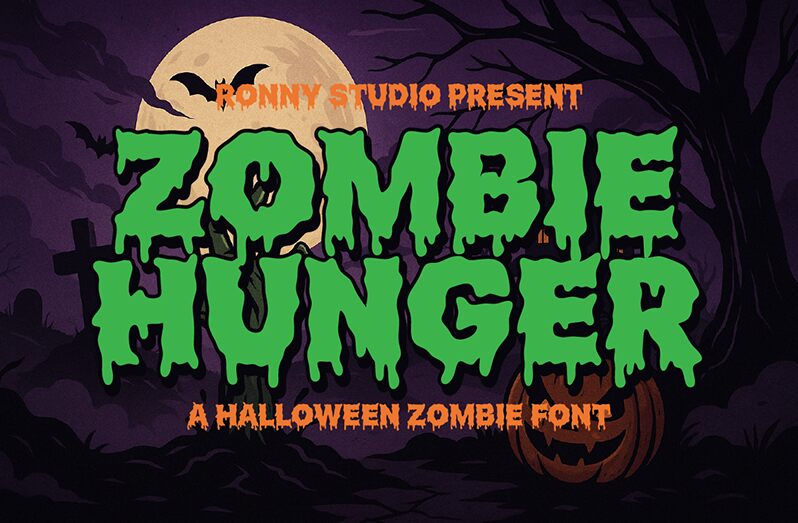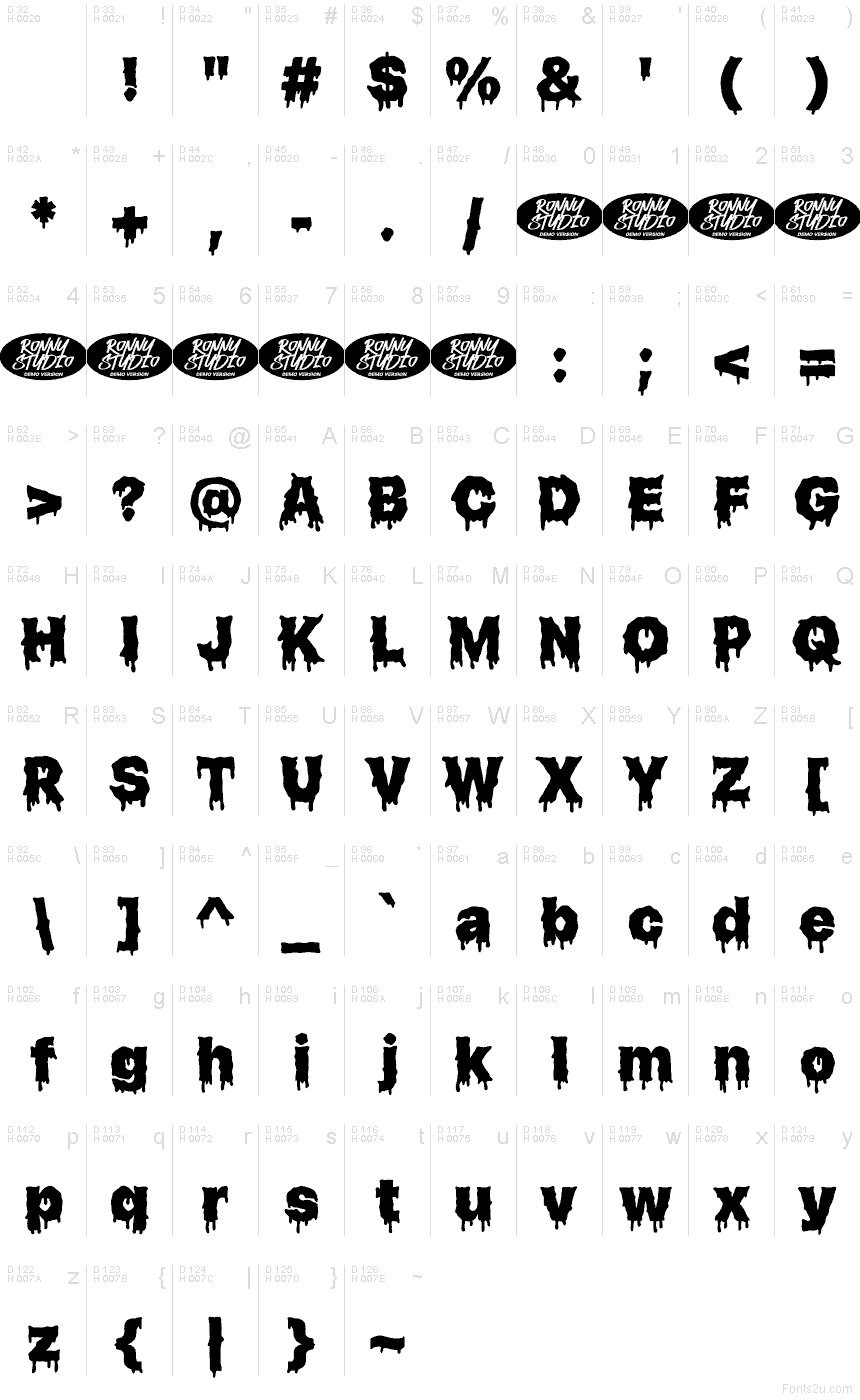
Zombie Hunger DEMO
Zombie Hunger font by Ronny Studio is a free Halloween display font that oozes with chunky drips and ragged, chewed edges. The letters feel wet and gloopy, like fresh ink splatter crawling down a poster—high contrast, irregular widths, and a shambling rhythm that instantly screams spooky fun.
Using Zombie Hunger, headlines snap to attention on haunted house flyers, party posters, trick-or-treat bags, horror game thumbnails, stickers, and seasonal social posts. This free font works best big and bold; give it a touch of extra tracking so the drips breathe. Pair with a clean condensed sans for body copy to keep the gore legible and the message clear.